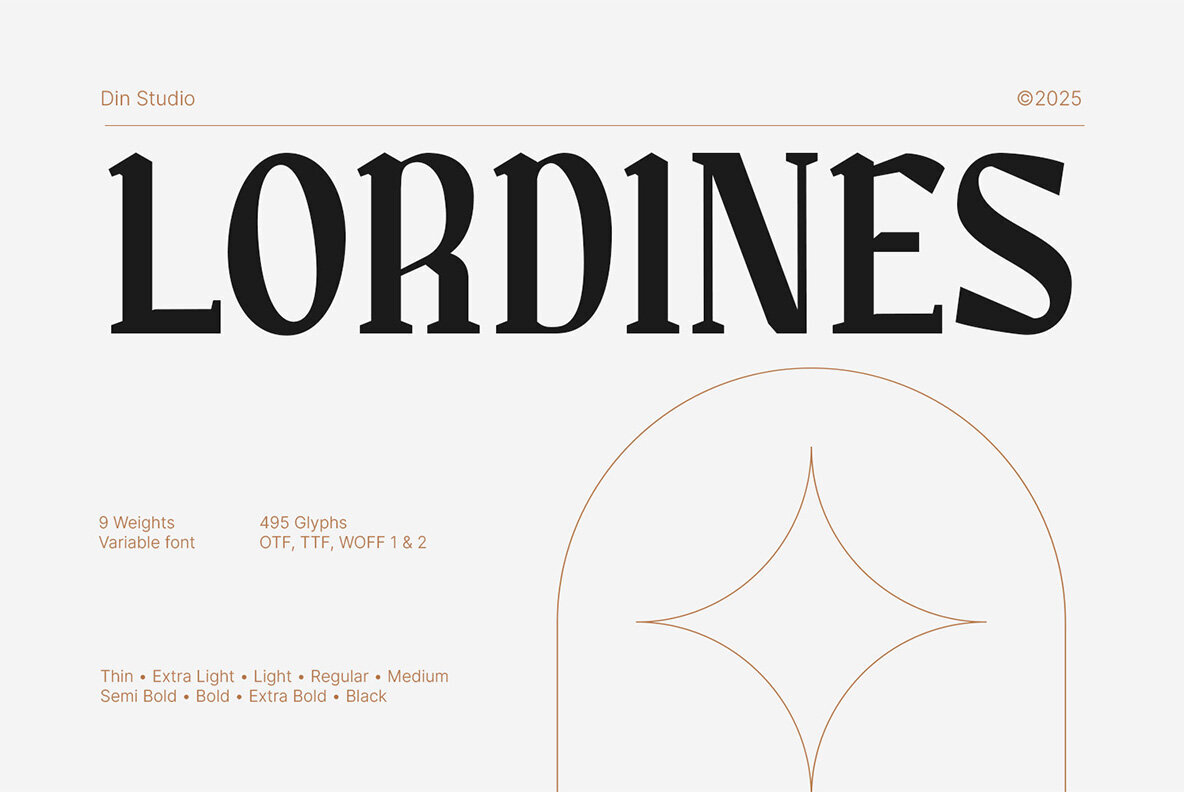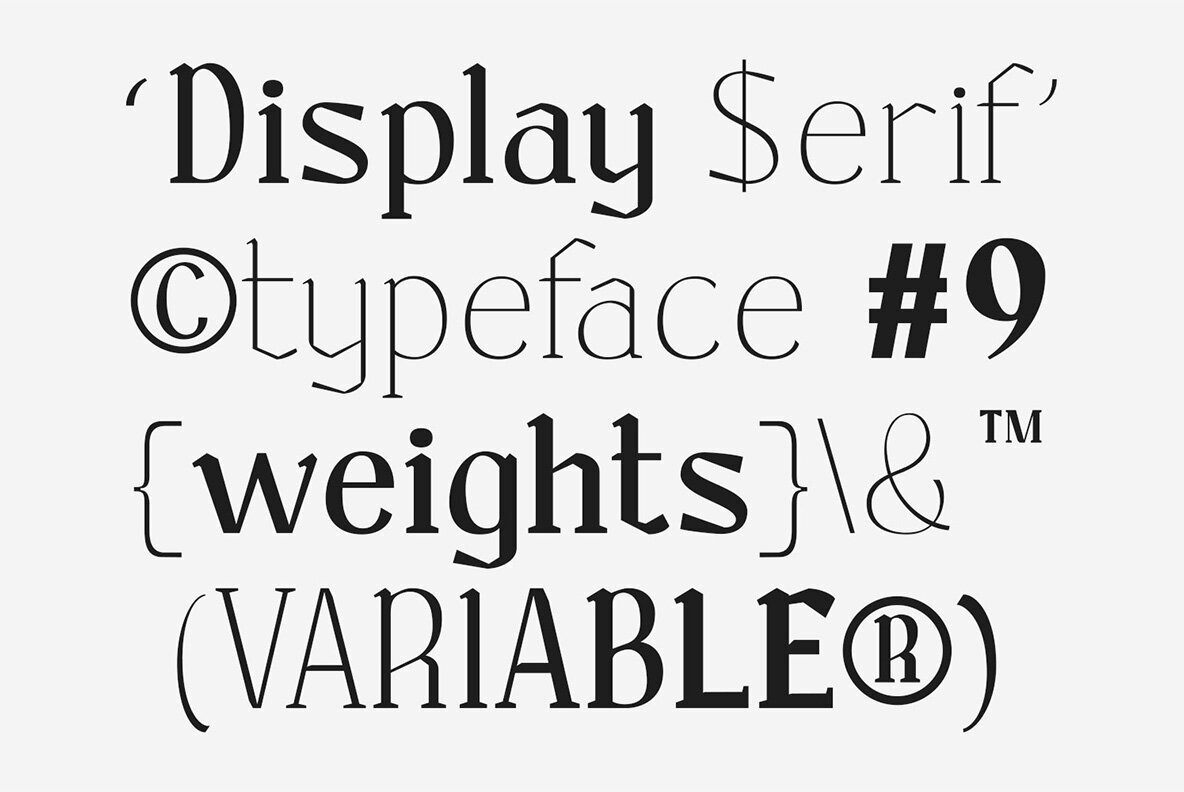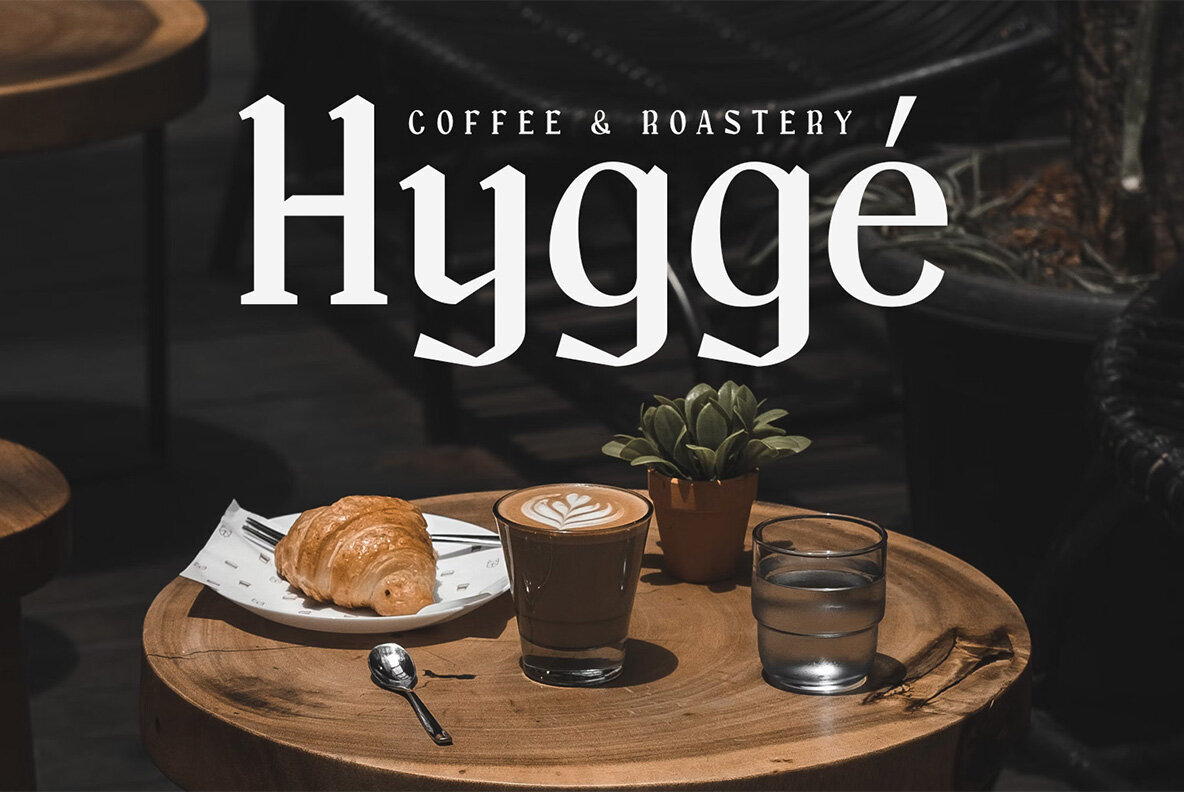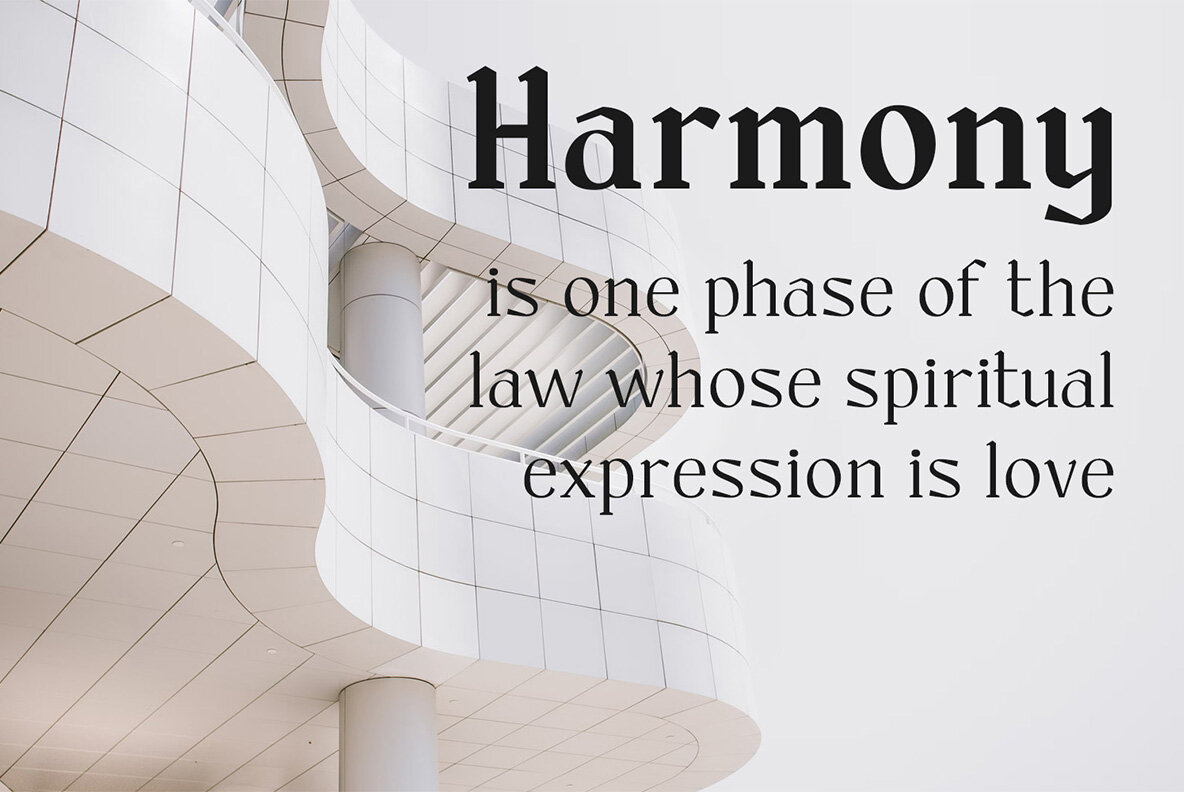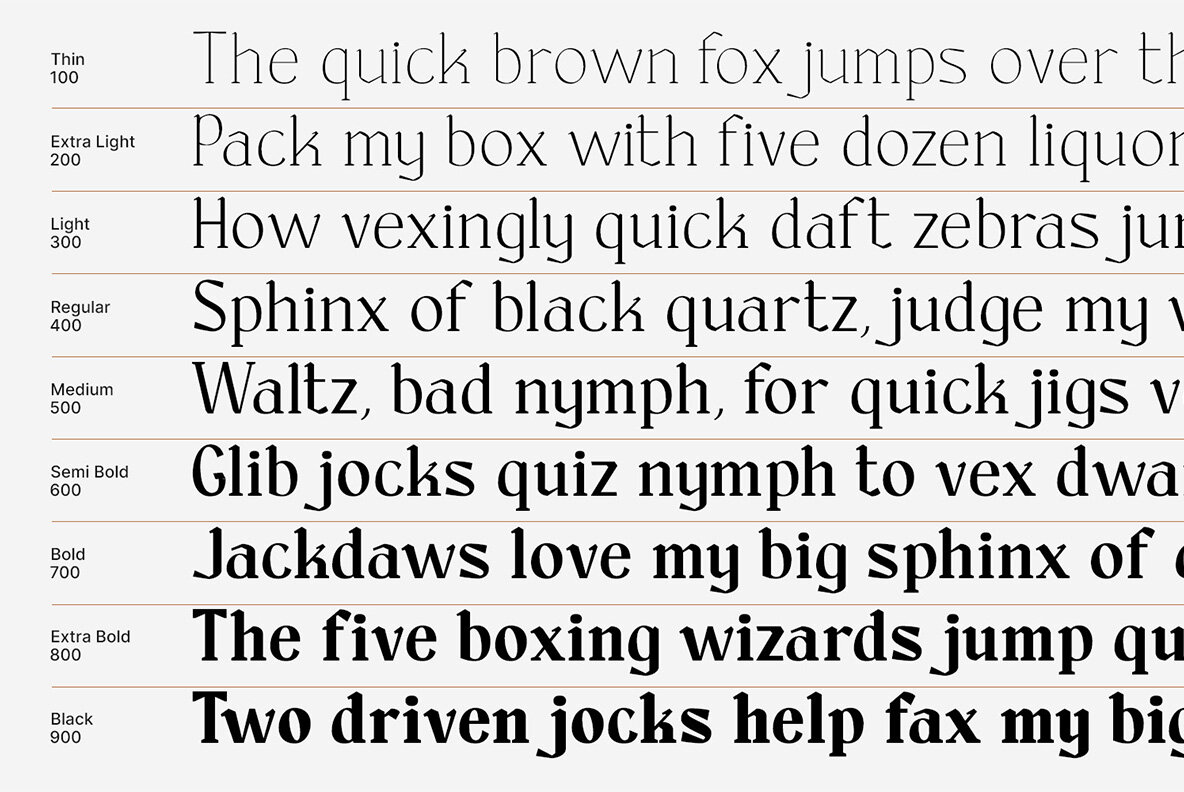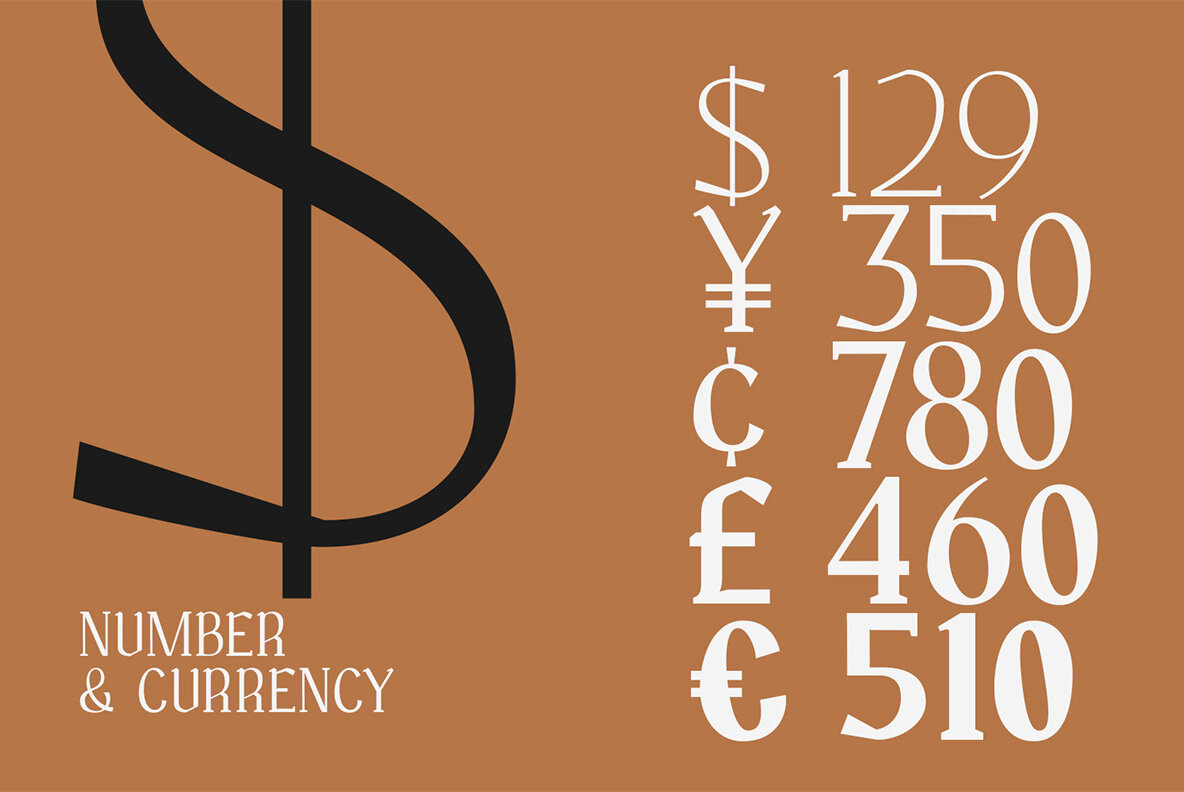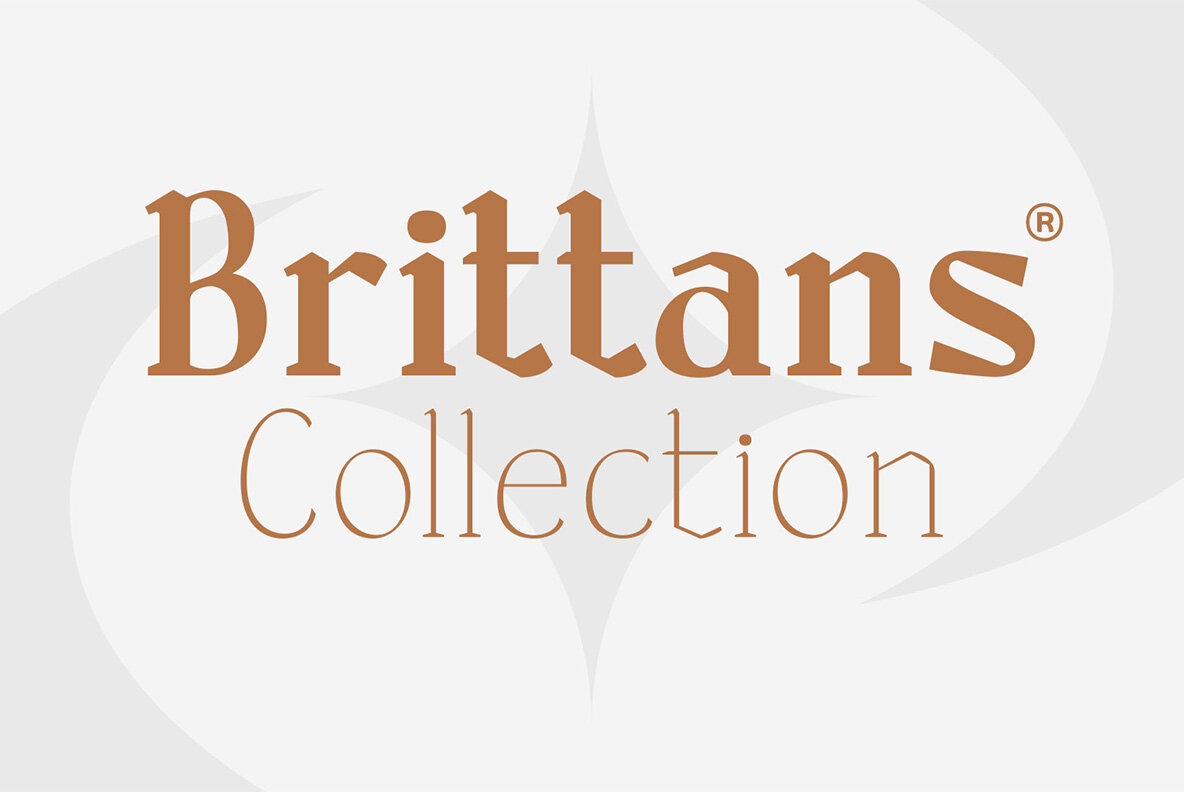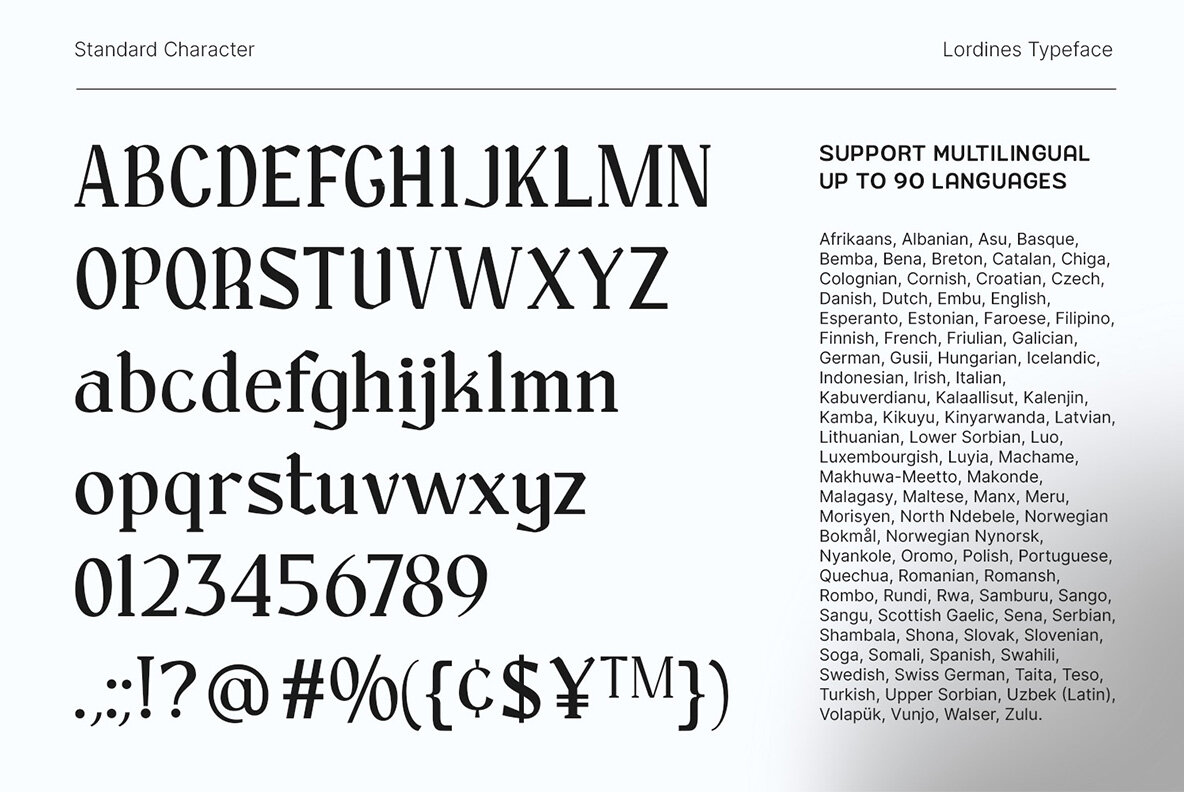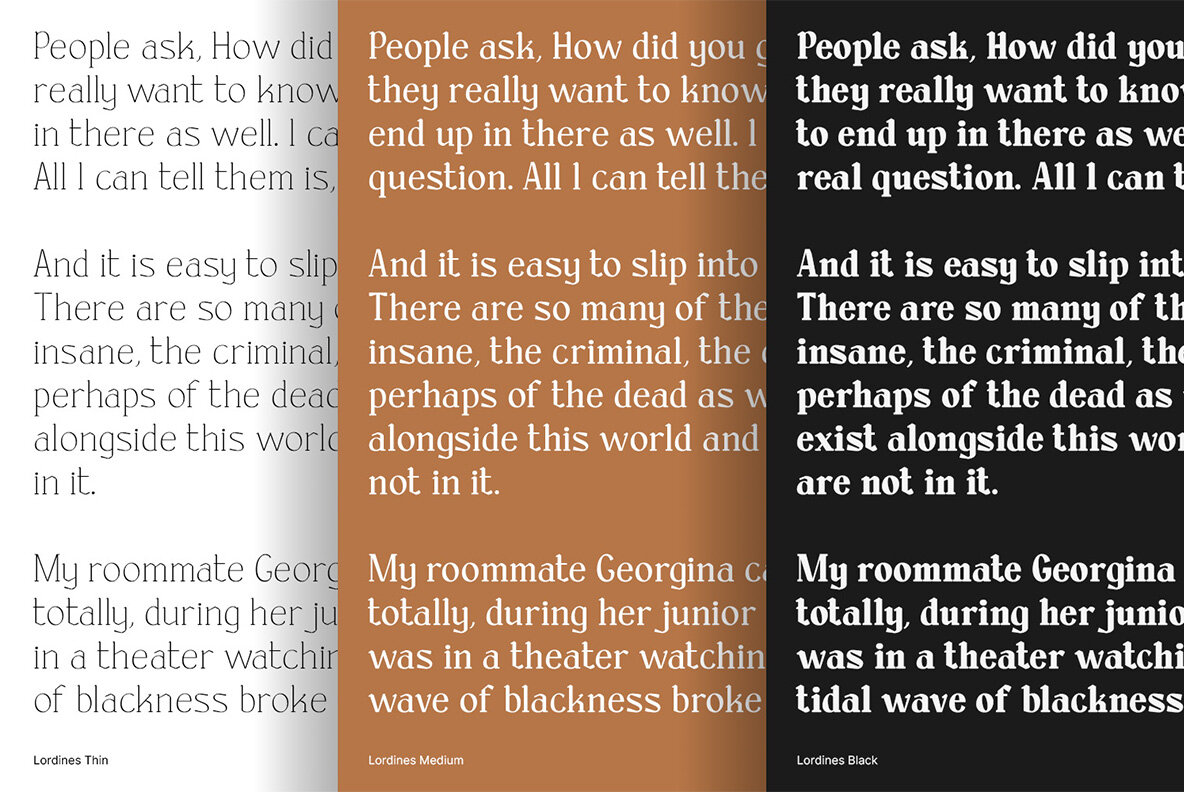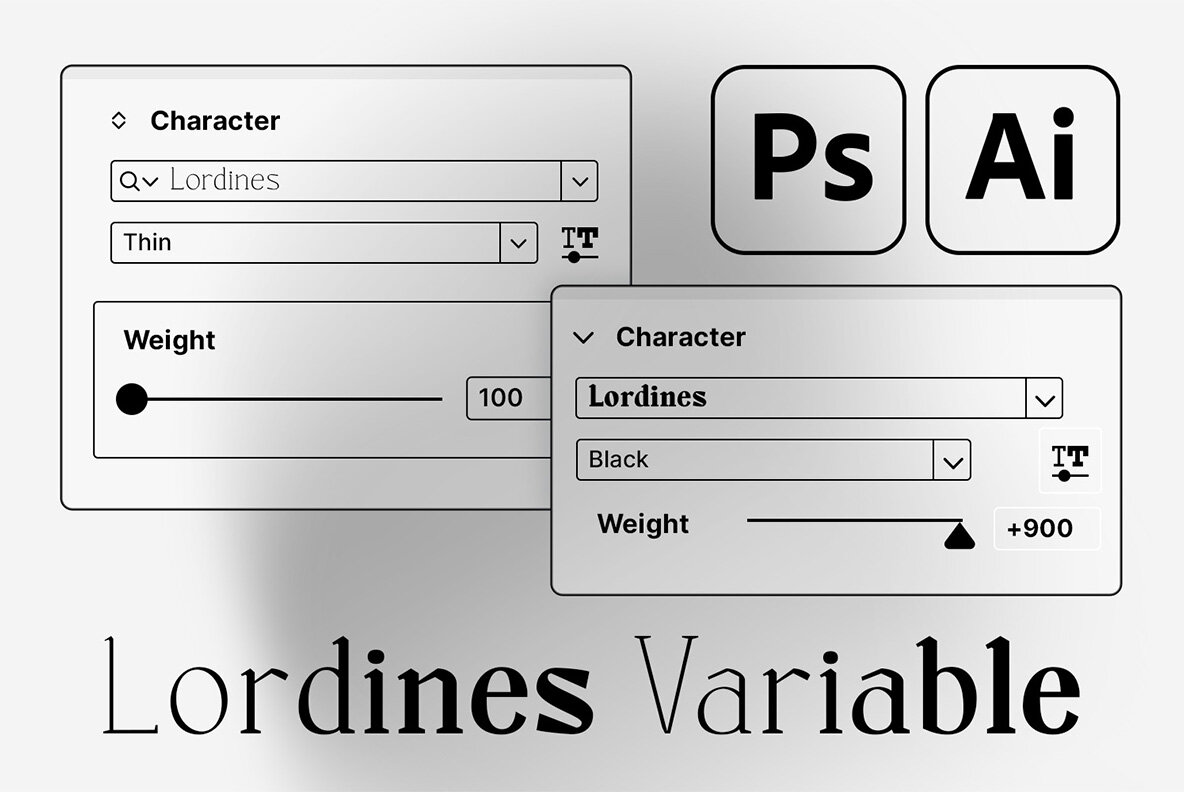
Lordines Font
Lordines is a captivating display serif font family that masterfully combines the classic elegance of old-style serifs with a contemporary flair. With an impressive array of 9 distinct weights, from Thin to Black, and a variable font option offering seamless weight control, Lordines adds a sophisticated touch to your headlines, editorial layouts, and branding projects. Whether you're aiming for timeless or modern, Lordines seamlessly adapts to your design needs.Lordines: Old-Style Serif with a Modern Edge